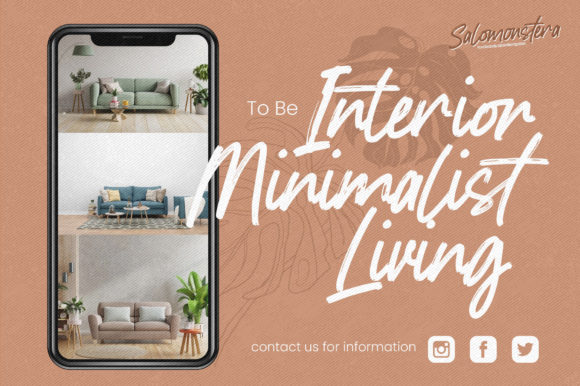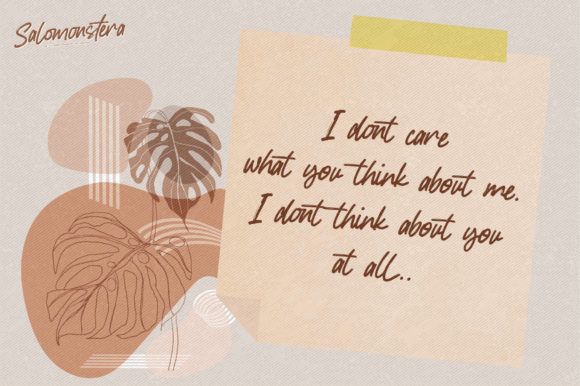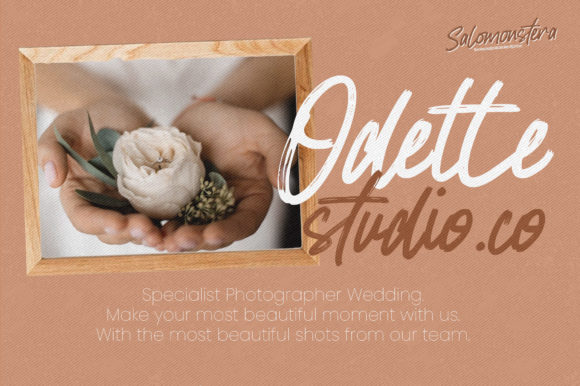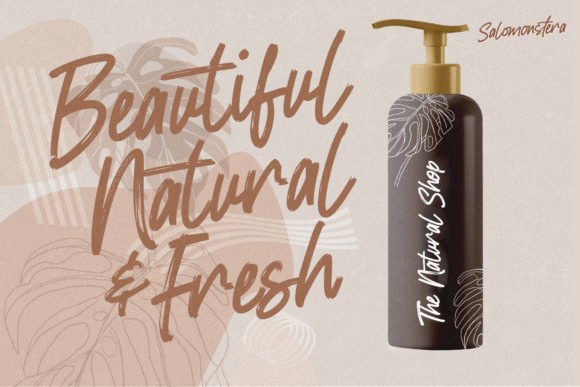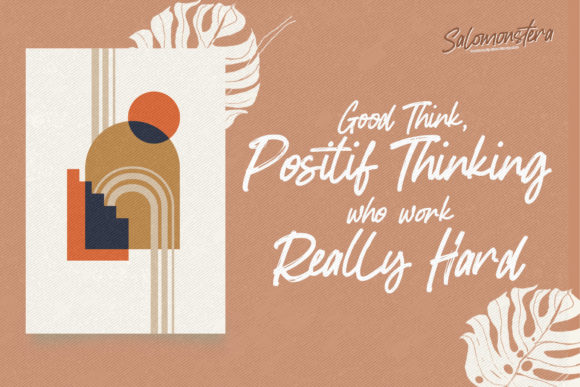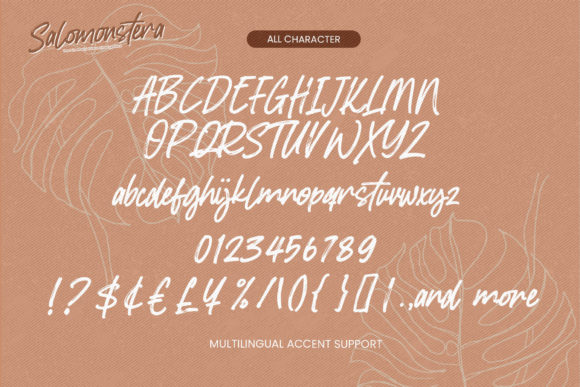
Introduction to Salomonstera Font
Have you ever found yourself scribbling notes in a coffee shop, or jotting down ideas in a worn-out notebook? Those quick, casual scribbles often hold a certain charm, don’t they? This same feeling of authenticity and relaxed elegance is exactly what the Salomonstera Font embodies.
As a designer, you’re always on the lookout for that special something to elevate your creative project. A high-quality font can make all the difference, adding a touch of sophistication to your branding, logos, or product packaging. That’s where the Salomonstera Font comes in – a beautiful, handmade script font that’s perfect for designers seeking a more natural look.
Key Features of Salomonstera Font
- High-quality design resource for creative projects, featuring a unique and elegant script font.
- Transparent background allows for seamless integration with various design elements and backgrounds.
- Features a high-resolution design (300 DPI) for crisp and clear display in print and digital applications.
- Unique characteristics include its flowing and cursive script style, making it perfect for wedding invitations, quotes, and other creative projects.
- Easy to customize and pair with other fonts to create a unique and visually appealing design.
Honest Review: Salomonstera Font
What works well with Salomonstera Font is its high quality and versatility. It comes in a range of styles, from elegant to bold, making it perfect for various design applications. The transparent background allows for seamless integration with other design elements, making it a breeze to work with.
- ✨ High-quality design: The Salomonstera Font is crisp and clear, making it perfect for both digital and print projects.
- ✨ Versatile styles: With multiple styles to choose from, you can easily find the perfect fit for your creative project.
Tips for Getting the Most Out of Salomonstera Font
Common Use Cases for Salomonstera Font
Salomonstera Font is a versatile design resource that can be used in a variety of creative projects, including logos, business cards, and social media graphics. Its high-quality design and transparent background make it an ideal choice for designers looking for a professional-looking font.